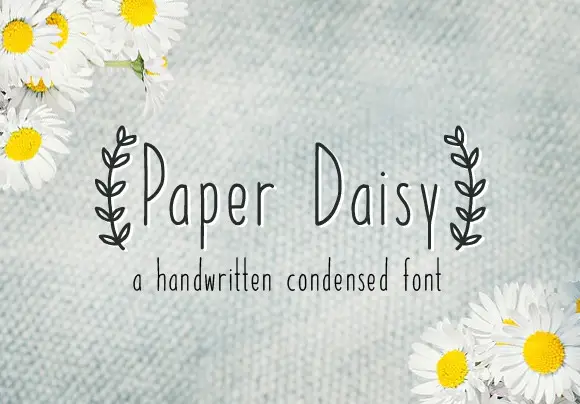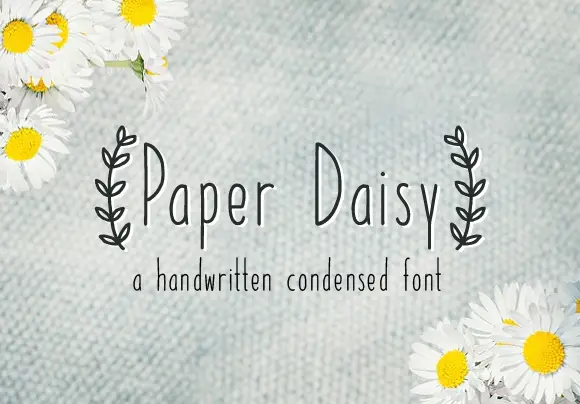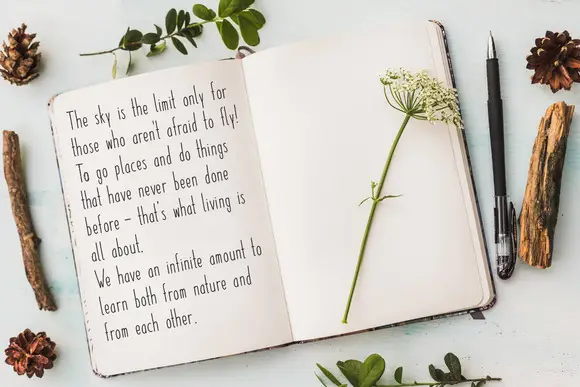
Paper Daisy Font
The Paper Daisy Font is a charming and whimsical typeface that adds a touch of playfulness to any design project. With its unique hand-drawn style, this font is perfect for creating eye-catching branding, logos, and invitations. The Paper Daisy Font is versatile enough for both web and print applications, making it an ideal choice for designers looking to bring a personal touch to their work.
• Hand-drawn style for a unique look
• Numbers and punctuation included
• Available in multiple weights
• Style: Display
• Ideal for branding and logo design
• Great for invitations and greeting cards
• Use for web headers and social media graphics